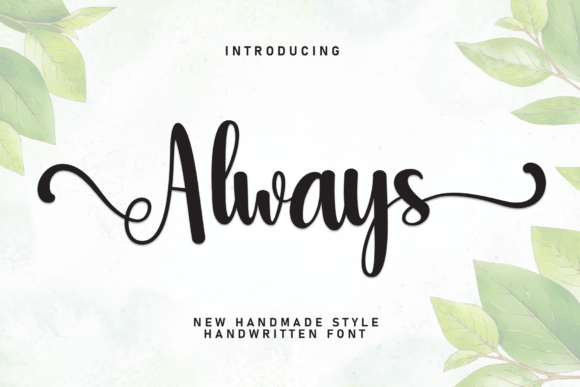
Introducing Always Font: The Timeless Typeface for Elegant Designs
I’ll never forget the design project that led me to discover Always Font. I was working on a luxury wedding invitation suite, and my client was adamant that the font had to be elegant, sophisticated, and convey a sense of everlasting love. I scoured the internet, tried out countless fonts, but none seemed to fit the bill. That was until I stumbled upon Always Font. Its refined letterforms and elegant curves instantly captured the essence of what I was looking for. In this article, I’ll share my experience with Always Font, its features, and how to make the most of it in your designs.
A Personal Review of Always Font
- ✨ Elegant and refined letterforms that exude sophistication
- ✅ Perfect for luxury branding, wedding invitations, and delicate editorial layouts
- 💕 The font’s timeless beauty ensures it won’t go out of style anytime soon
- 🎨 Always Font’s versatility allows it to be used in a variety of design contexts
While Always Font is an exceptional typeface, there are a few things to keep in mind:
- 🤔 The font’s intricate details can be challenging to read at very small sizes
- ⚠️ Some OpenType features may not work seamlessly across all design platforms
A Practical Guide to Using Always Font
The Story Behind Always Font
Always Font was designed by a renowned type designer who sought to create a timeless, elegant typeface that would evoke a sense of everlasting beauty. Inspired by classic serif fonts and calligraphic scripts, Always Font combines the best of both worlds to create a unique and sophisticated typeface.
Q: What is Always Font best suited for?
A: Always Font is perfect for luxury branding, wedding invitations, and delicate editorial layouts where a touch of elegance and sophistication is desired.
Q: Does Always Font support OpenType features?
A: Yes, Always Font supports various OpenType features, including glyphs, stylistic alternates, and more, which can enhance your designs.
Q: Is Always Font easy to read?
A: Always Font is designed to be elegant and refined, but its intricate details can make it challenging to read at very small sizes. It’s best used at larger sizes or for display purposes.